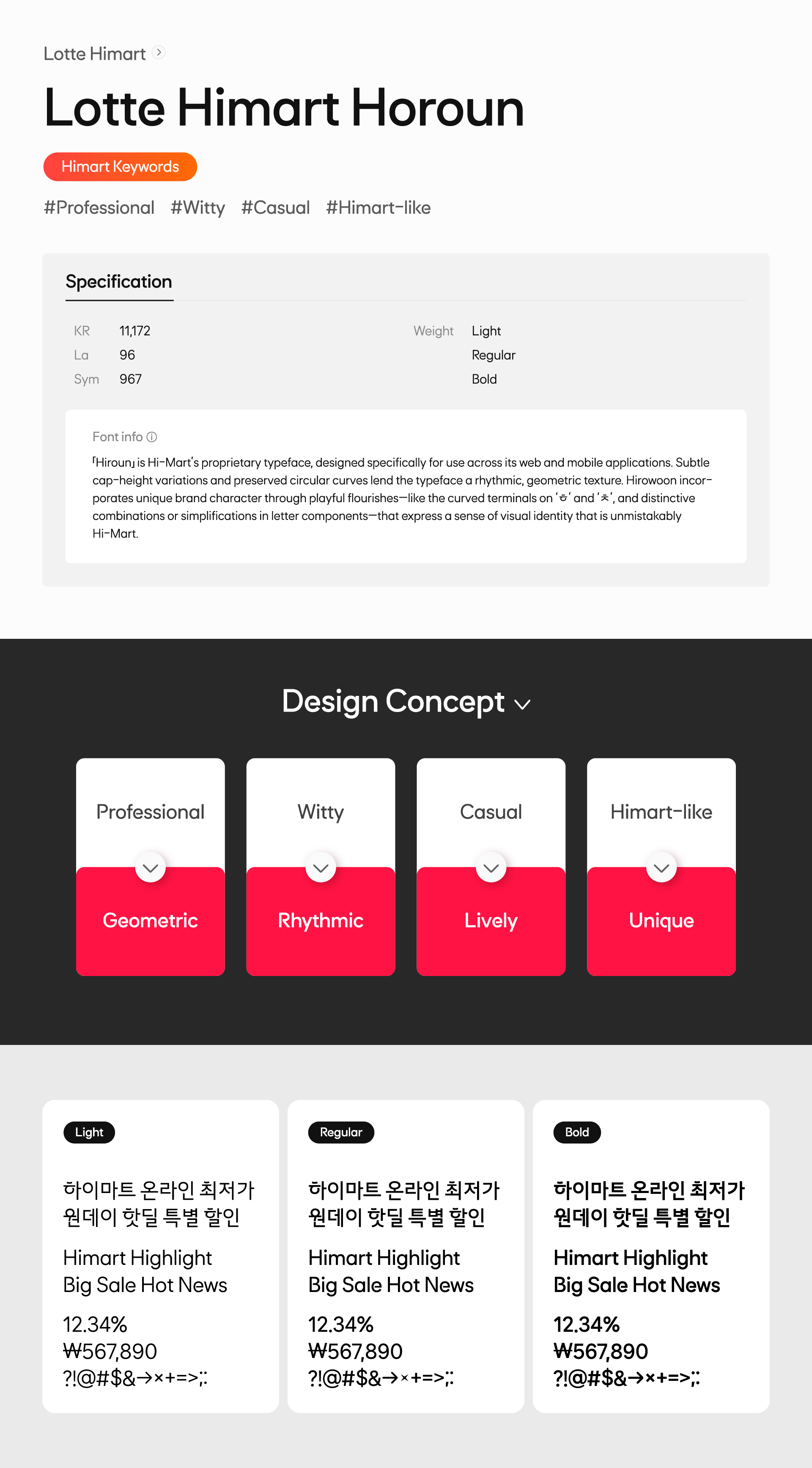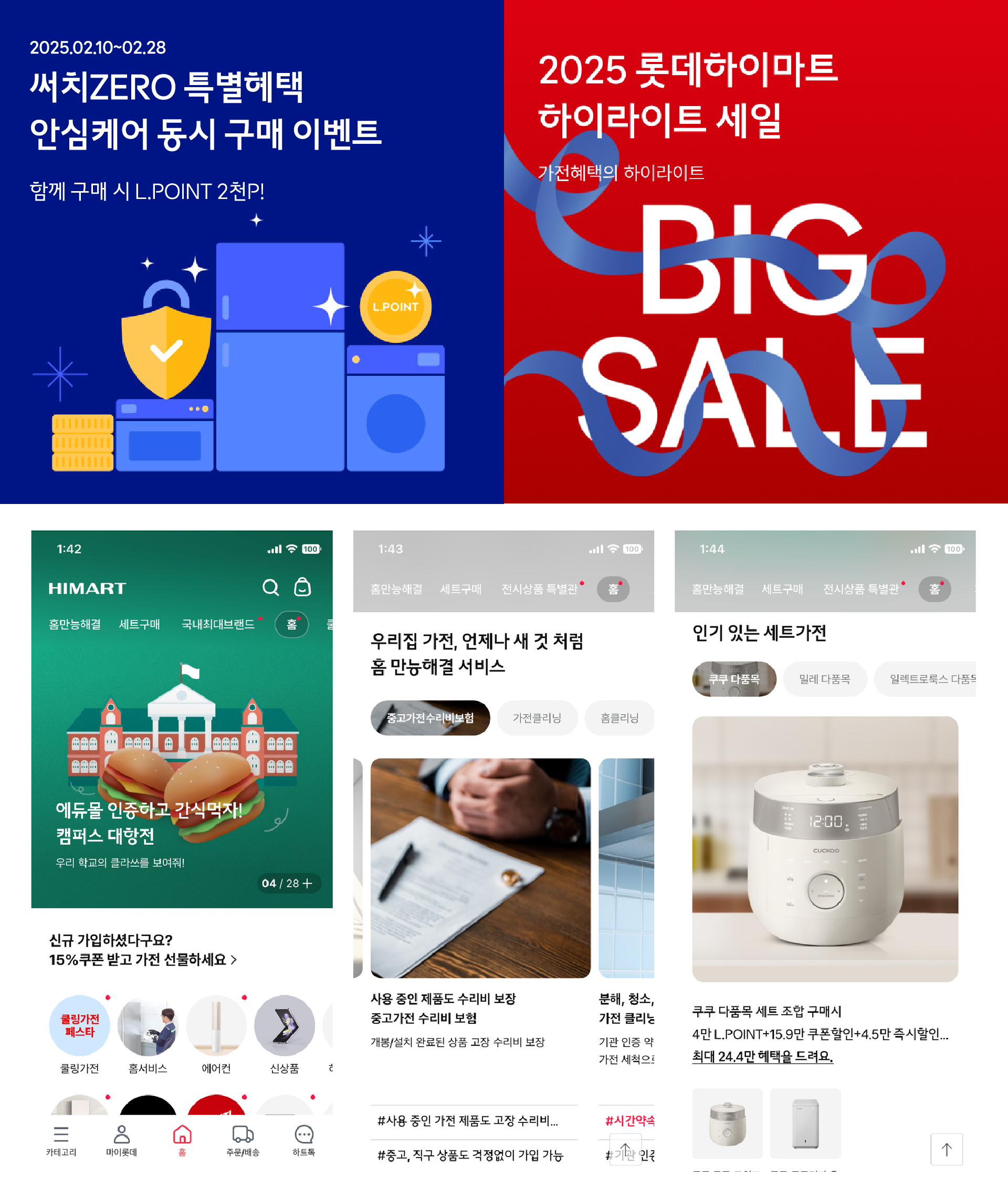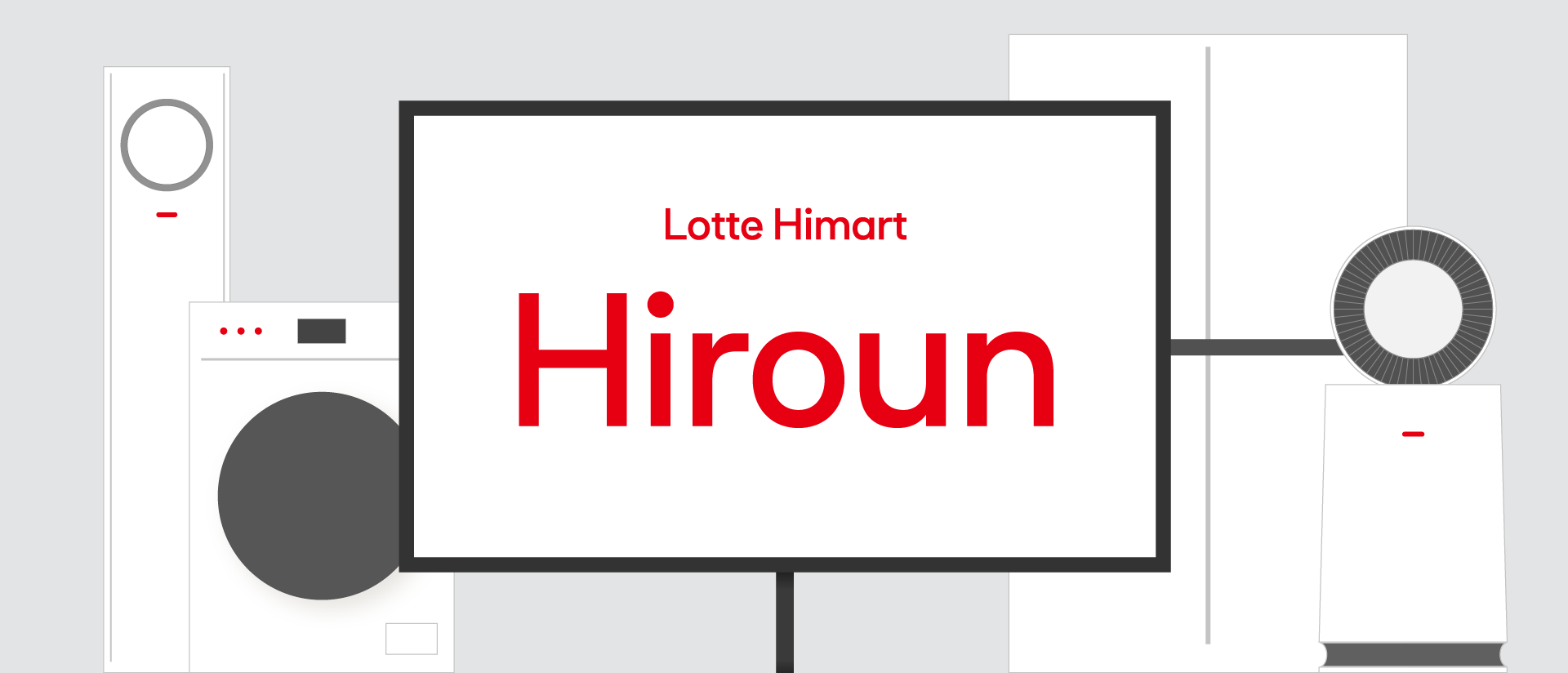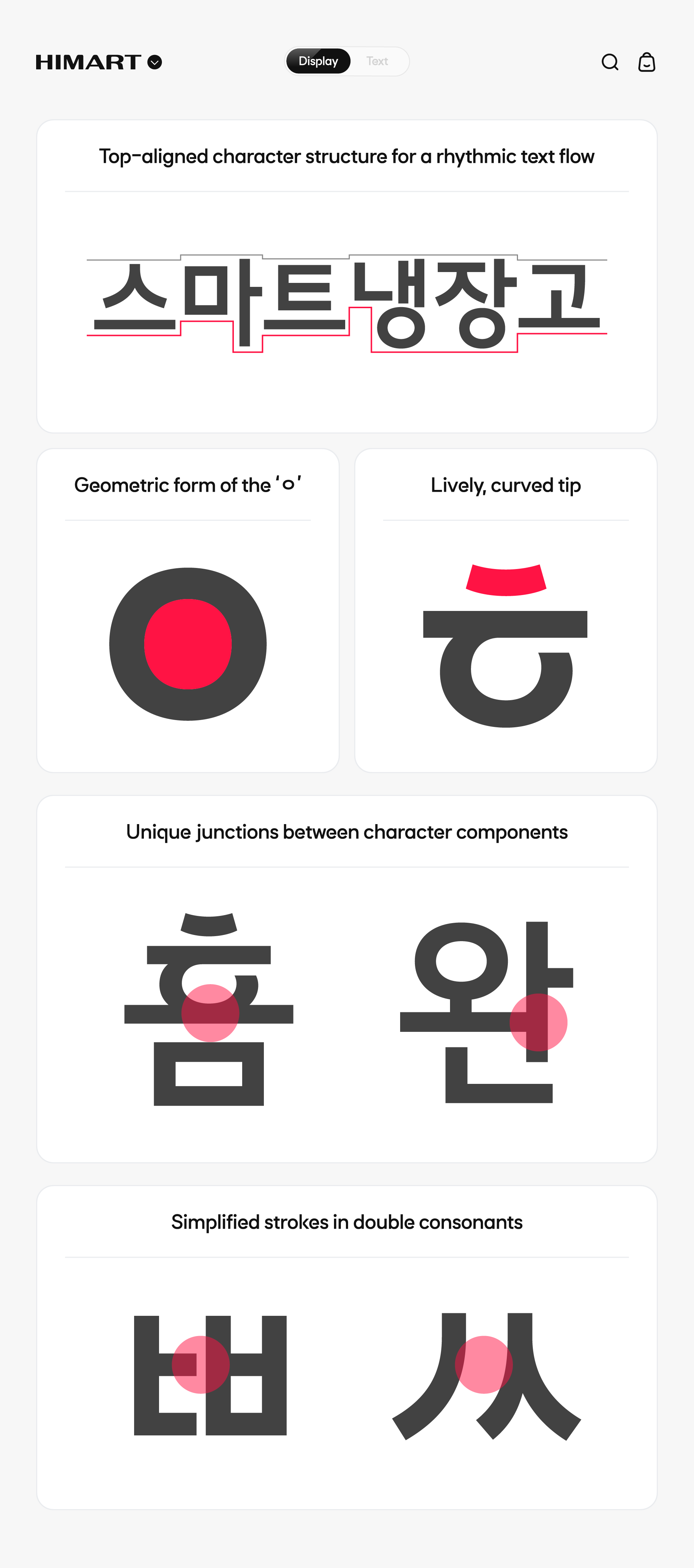
LOTTE HIMART Hiroun
「Hiroun」 is Hi-Mart’s proprietary typeface, designed specifically for use across its web and mobile applications.
Subtle cap‑height variations and preserved circular curves lend the typeface a rhythmic, geometric texture.
Hirowoon incorporates unique brand character through playful flourishes—like the curved terminals on ‘ㅎ’ and ‘ㅊ’, and distinctive combinations or simplifications in letter components—that express a sense of visual identity that is unmistakably Hi-Mart.
It also addresses environments where numeric information is frequently presented—such as prices and discounts—by including clearly refined numerals and functional symbols like arrows, percentages, and commas.